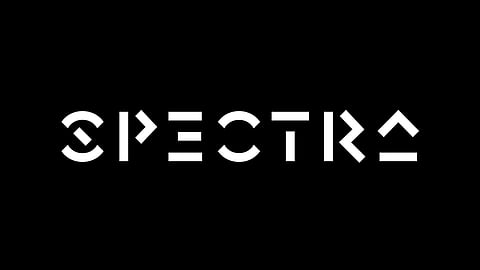
The new revamped design of Spectranet by Ochre is bold with its unique typeface and successfully encompasses the vision of the company making it seamless and customer centric.
Rated as India's fastest fibre broadband provider by Netflix, the young and ambitious leaders of the company envisioned to provide a revolutionary approach and change the face of the Internet in the country. Thus, they wanted to revamp their brand model with Ochre using its design disciplines to market the product and make its mark in this niche segment. Spectranet is the rebirth of a ten-year-old company in its quest to improve the broadband services for the futuristic citizens.
Rebranding in the Internet segment called for a tactical analysis of the current situation. Although the demand is huge with India's vast population base, the average internet speed stands at 4.1 Mbps. And only a marginal percentage of people have access to a high-speed fibre optic connection. The mass cannot comprehend the advantages of speed or other technical jargon and become frustrated when they are unable to stream their favourite show/ not work efficiently. Moreover, the offers provided by the incumbents are expensive, filled with caps and traps.
Discovering an opportunity to humanise technology and focus on consumer needs, the brand name was changed to 'Spectra' to showcase the company's future direction of providing much more than mere 'Internet' such as cloud services and security services.
Embodying the disruptive spirit of the company, the new design needed to be functional and stylish. Ochre deployed ethnographic research techniques to understand the role of the internet in today's era. Therefore, Ochre collaborated with the Rick Banks of F37 to re-define the brand with a custom-made, iconic typeface that would stand out and speak to the customers in a recognisable, yet, bold and singular way.
The tone was subsequently articulated with attitude and confidence with headlines that subvert accepted the language and functional copy that is unapologetically playful. Evolving the brand identity with a better visibility through design, UX/ UI interface was made much more seamless for better customer experience.
The revamped, new brand showcases customer-centric model with the changes made in its systematic processes, enhancements and a mindset to market the product solely focused on the benefits of the customer.